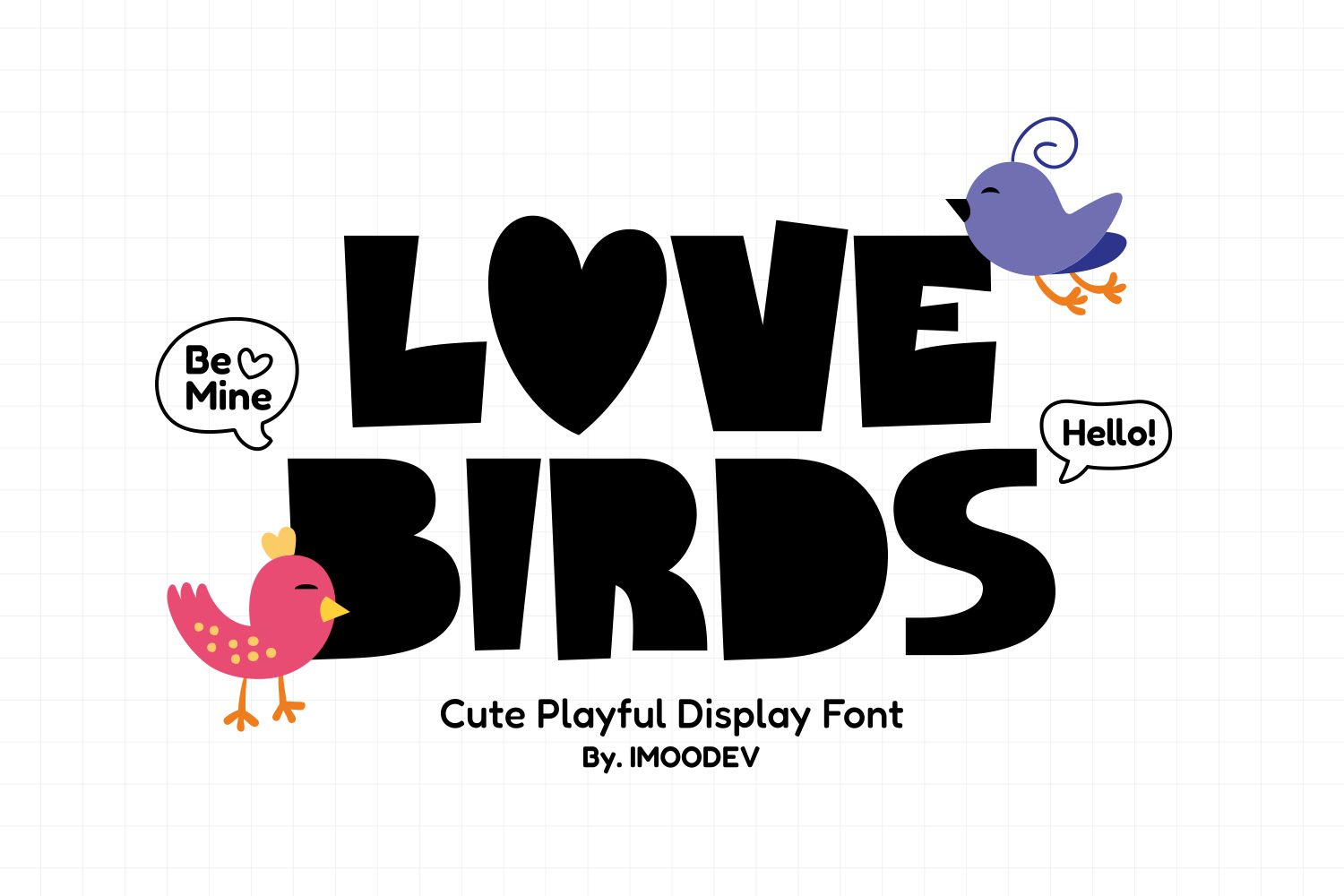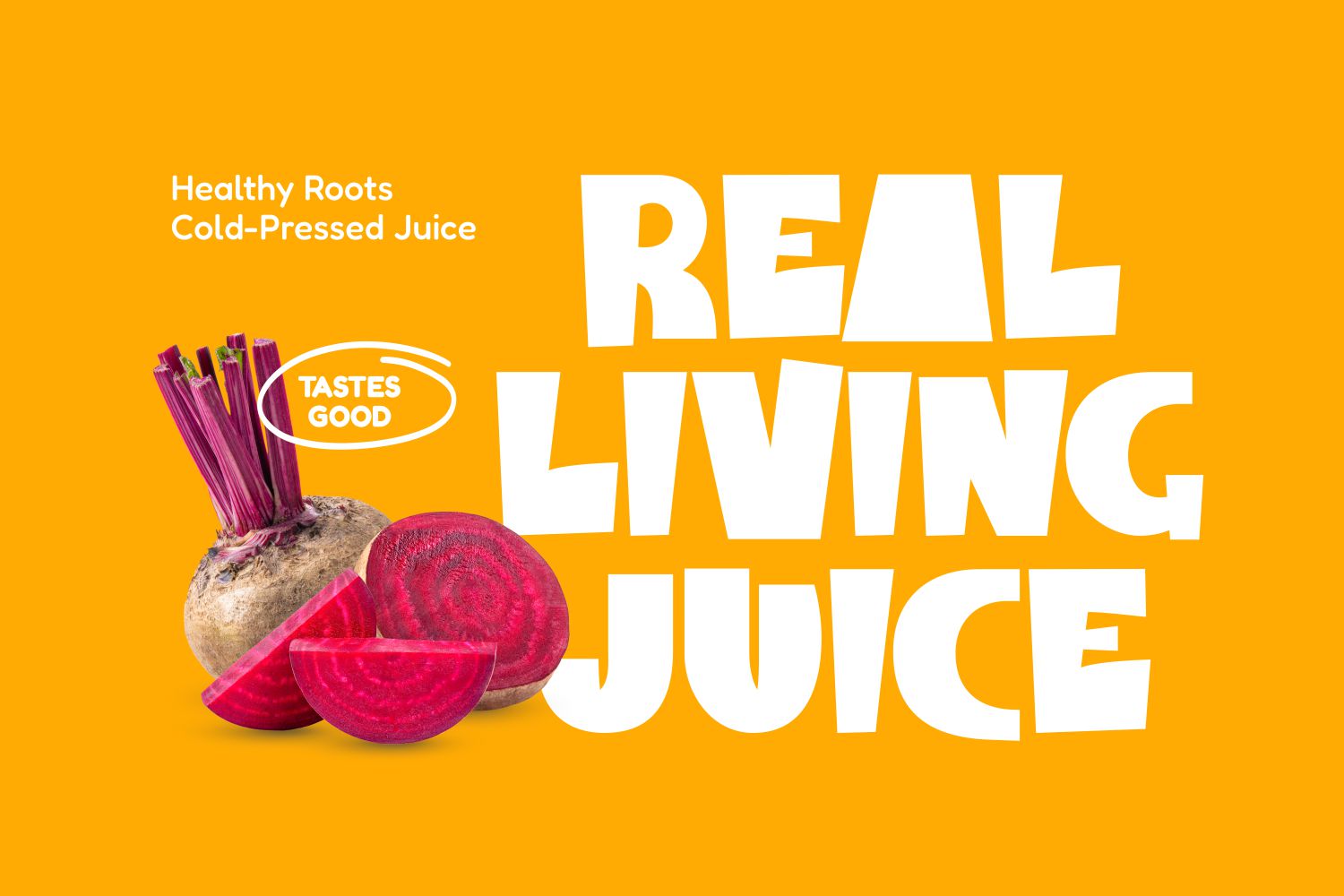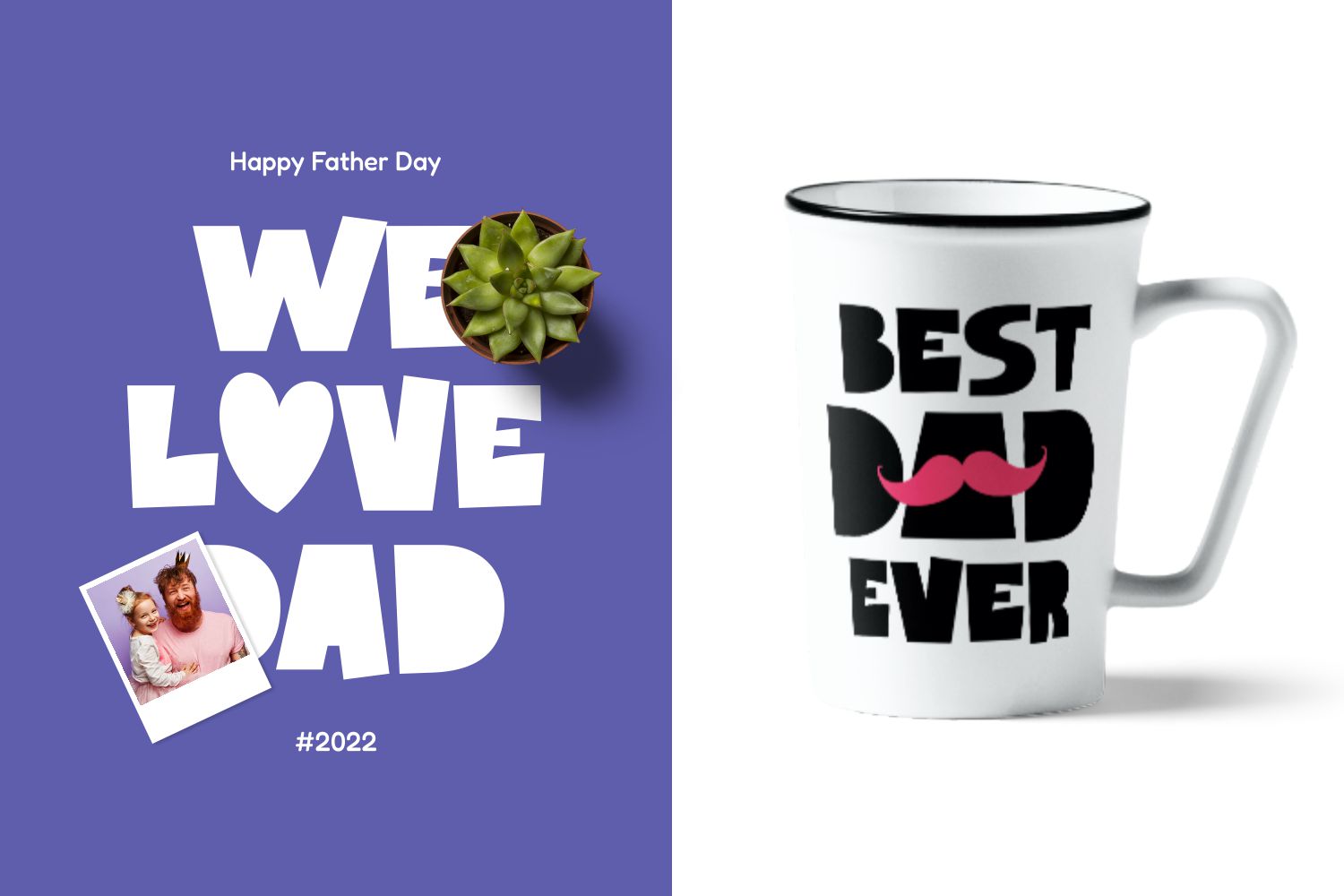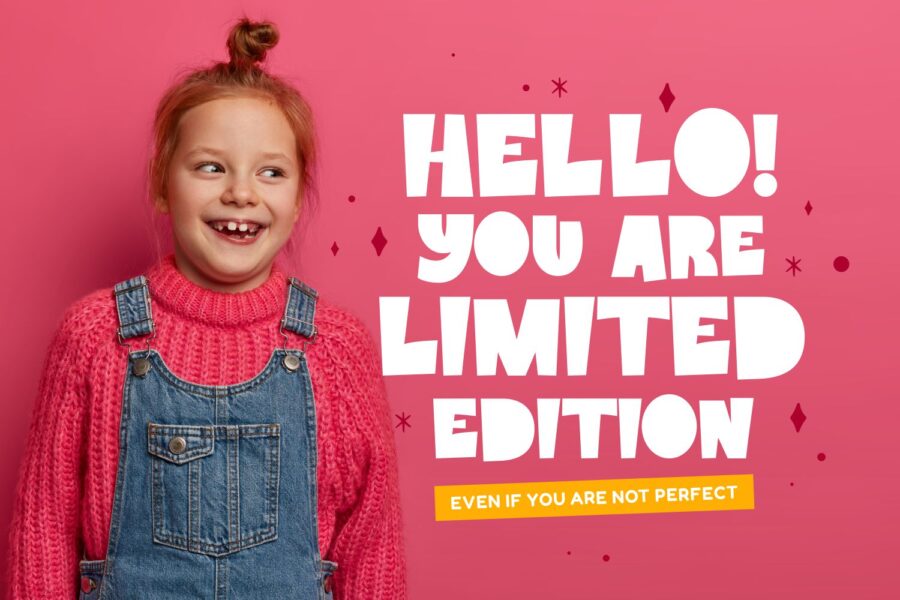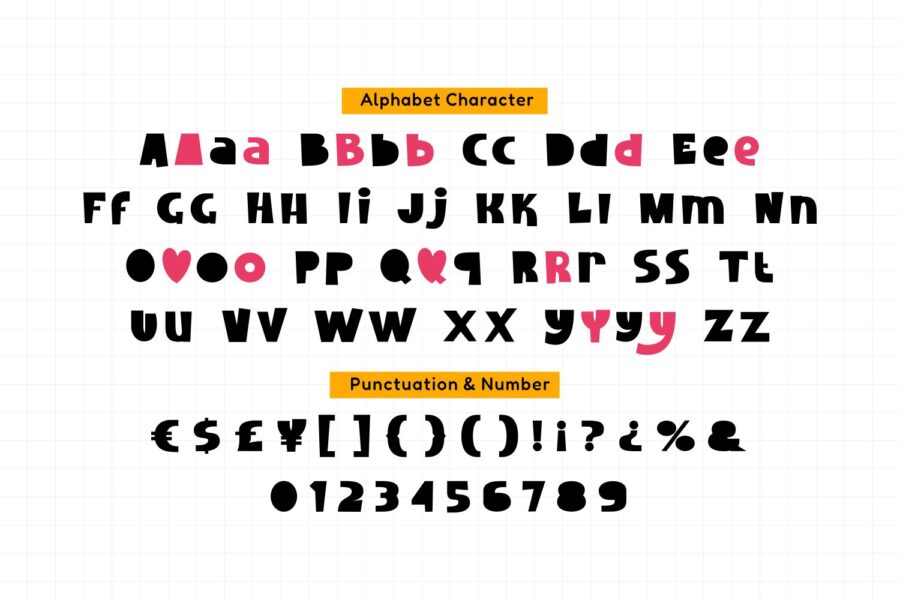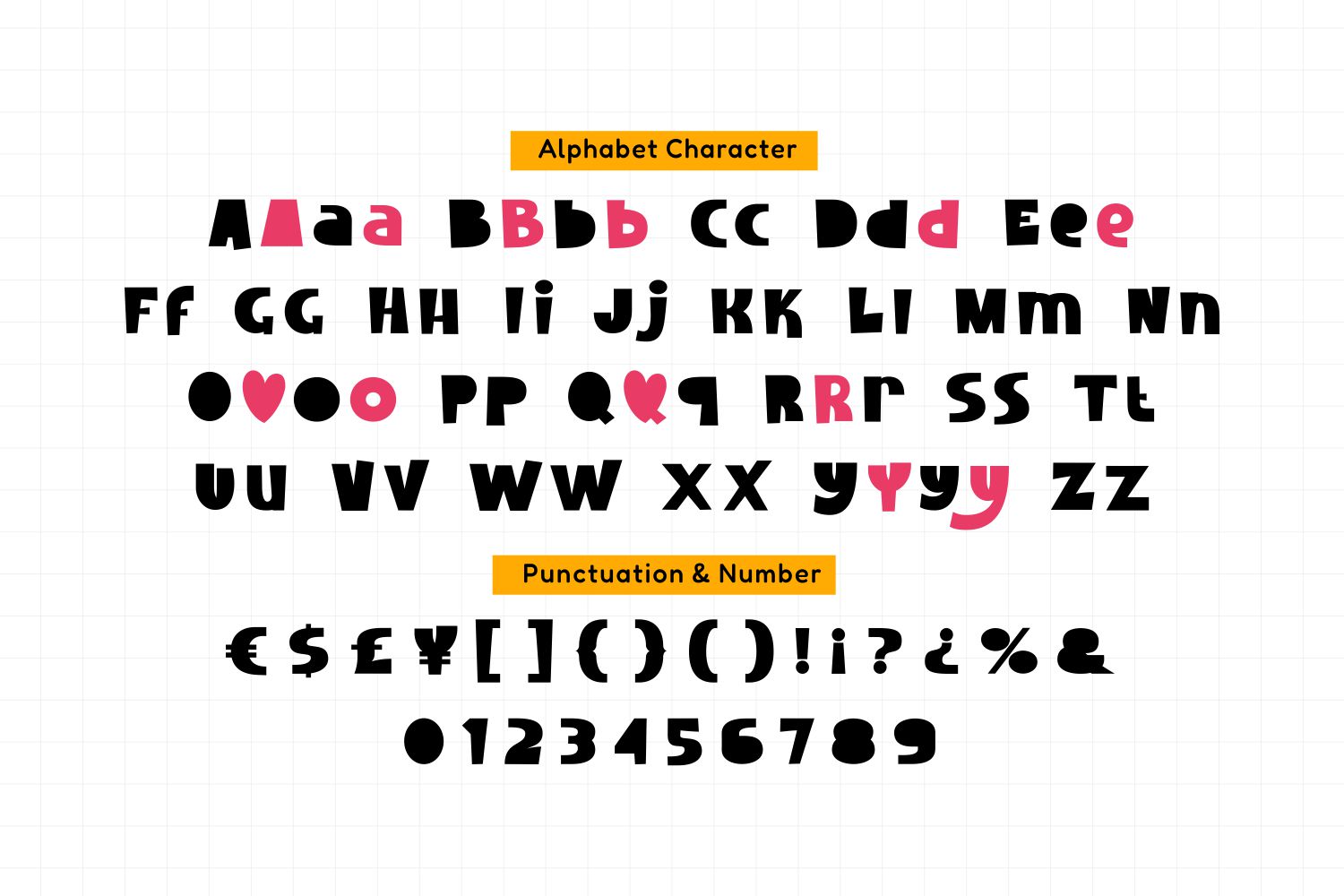
Love Birds is a cute and playful display font designed to spread joy, warmth, and creativity in every design. With its bold yet whimsical letterforms and charming heart-shaped alternates, this font is perfect for expressing love and happiness. It’s a great choice for children’s books, greeting cards, apparel, posters, and branding that needs a cheerful and fun personality. The quirky shapes and uneven strokes give it a hand-crafted feel, making it ideal for friendly and approachable designs.
This font is highly versatile, allowing you to create adorable and memorable visuals for various themes, from Valentine’s projects to family-oriented products. The combination of uppercase, lowercase, playful alternates, and unique characters makes it easy to experiment and add a personal touch. Whether used for digital content, packaging, or DIY crafts, Love Birds will instantly brighten up your project and connect with audiences of all ages.
Love Birds